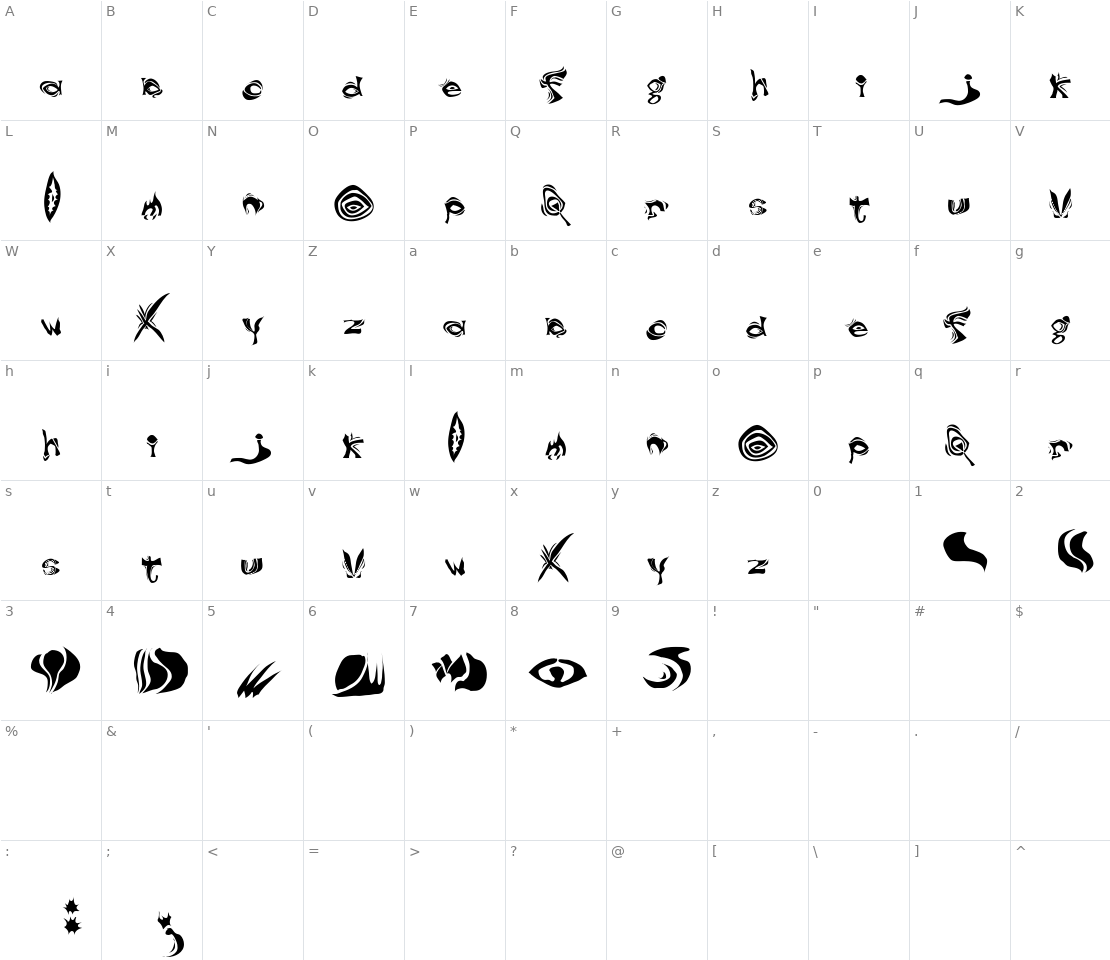
Dream And Fog
Dream And Fog is a heavily stylized decorative face from Mitch Greer that blends gothic and tribal influences into something dense and otherworldly. The ornamental letterforms feel ritualistic and dark, with sharp flourishes and intricate detailing that demand large sizes to read clearly. Best kept to headlines, logos, and fantasy-themed work where atmosphere matters more than legibility.